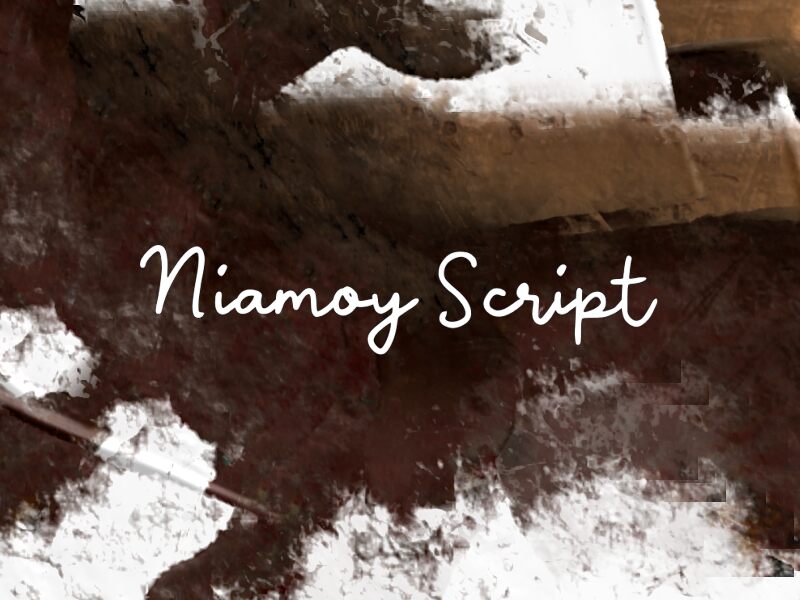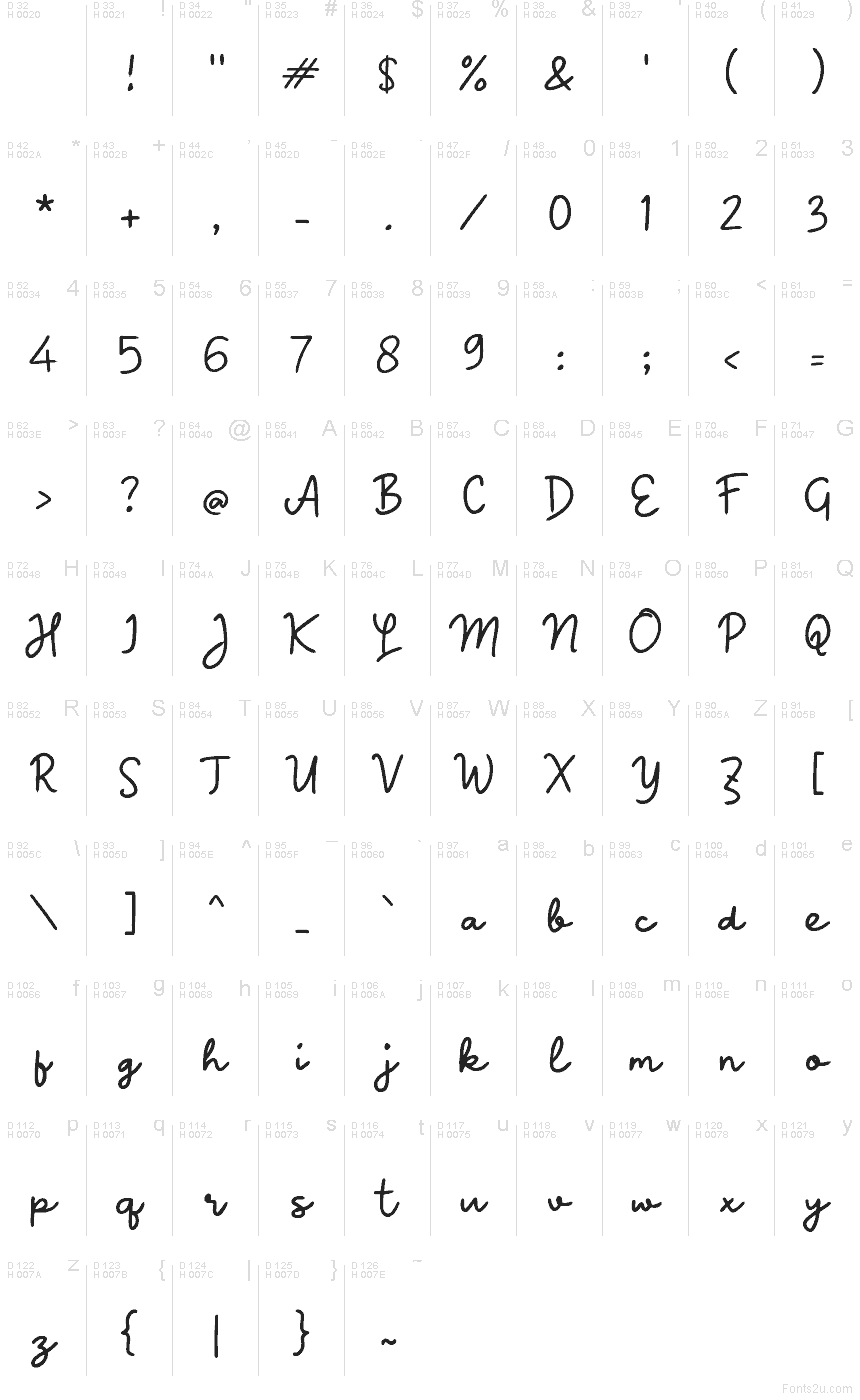
Niamoy Script
Niamoy Script font by wep is a free handwritten script font that captures the feel of quick, confident pen strokes without slipping into chaos. Its smooth, even rhythm and rounded forms keep every word easy to read, while the subtle bounce in the letters gives designs a relaxed, friendly tone. It feels like a neat personal note written with a fine-tip marker—casual, but cared for.
Using Niamoy Script, you can bring warmth to wedding invitations, logo marks, product packaging, quote graphics, social media posts, and digital planners. The consistent spacing helps longer phrases stay legible at smaller sizes, while the lively curves really shine on headings and short phrases. This free font pairs beautifully with a clean sans serif for body text—set Niamoy Script larger for names or key words and let the sans handle the details.